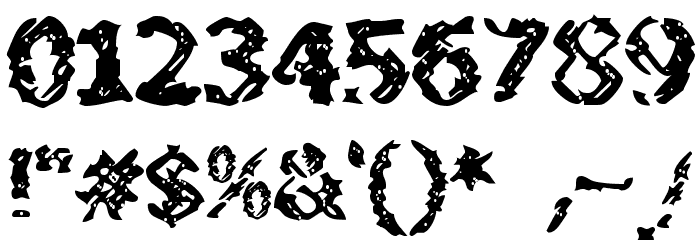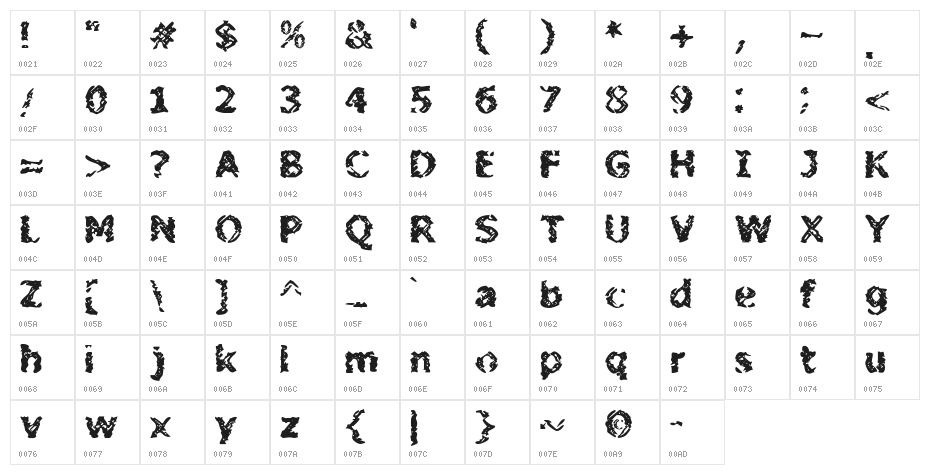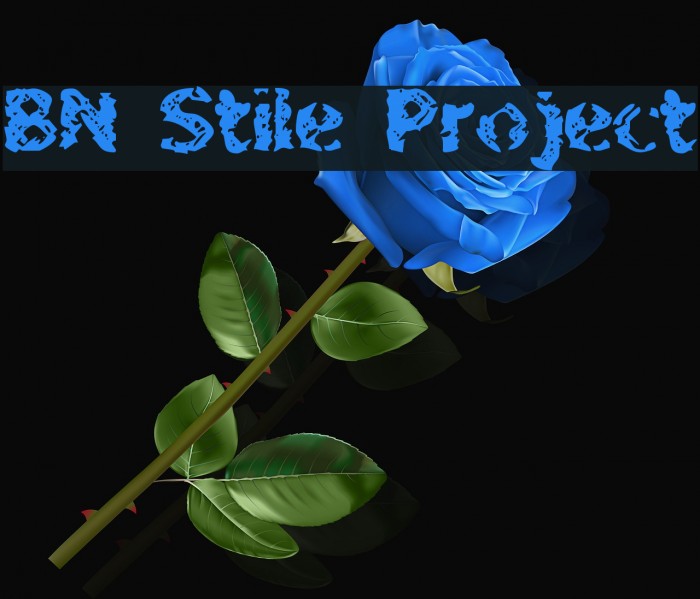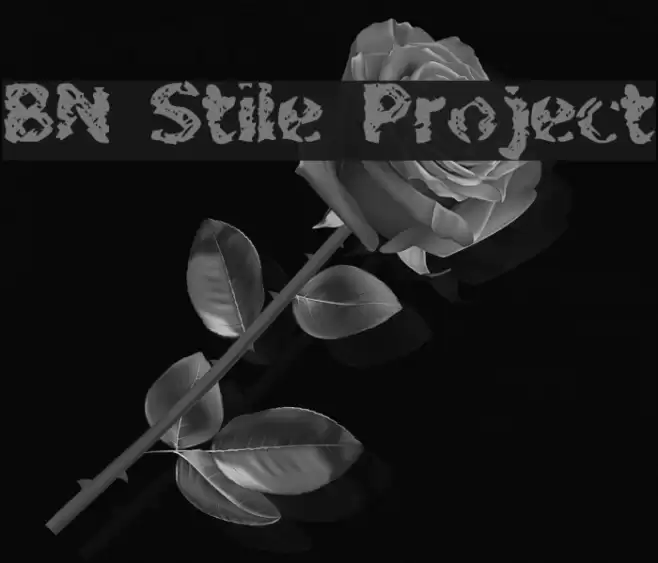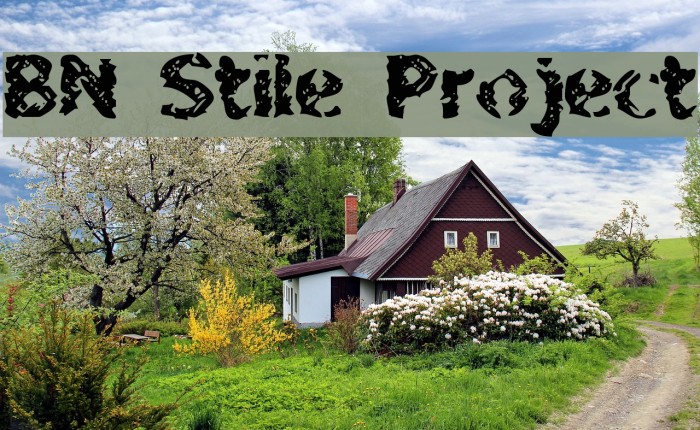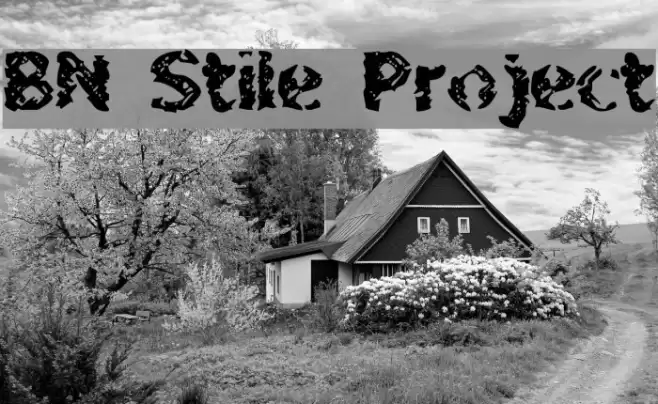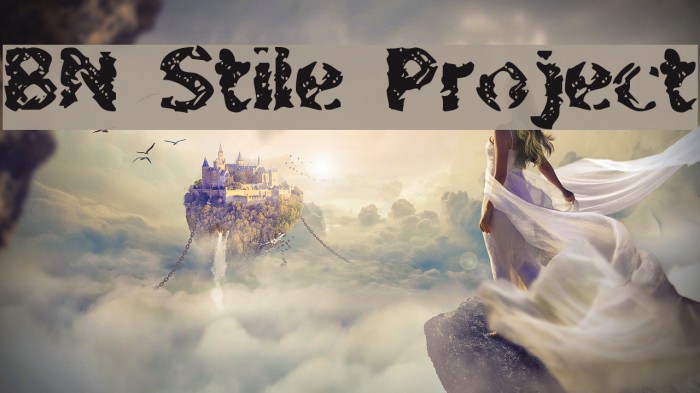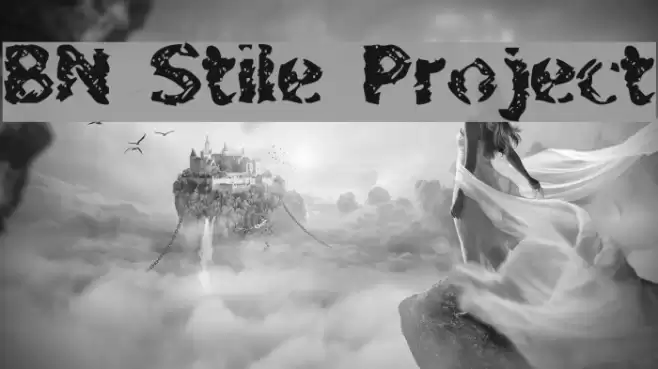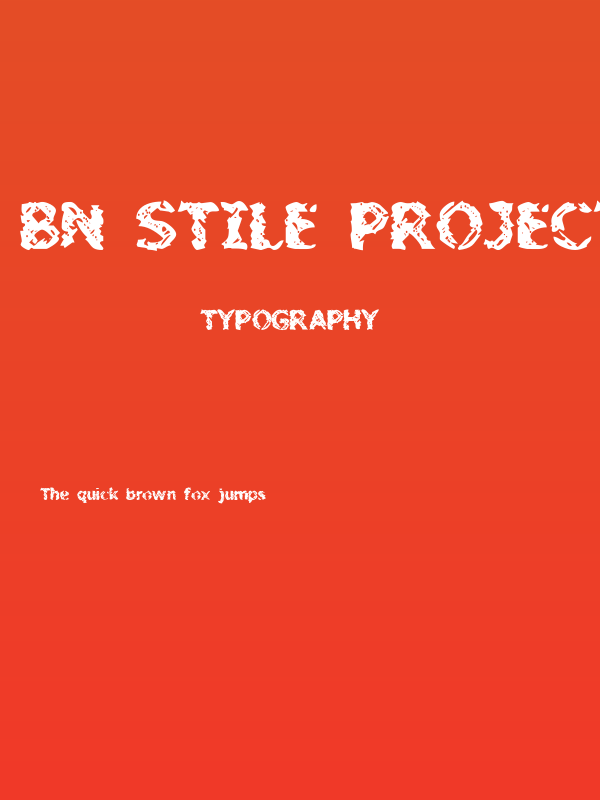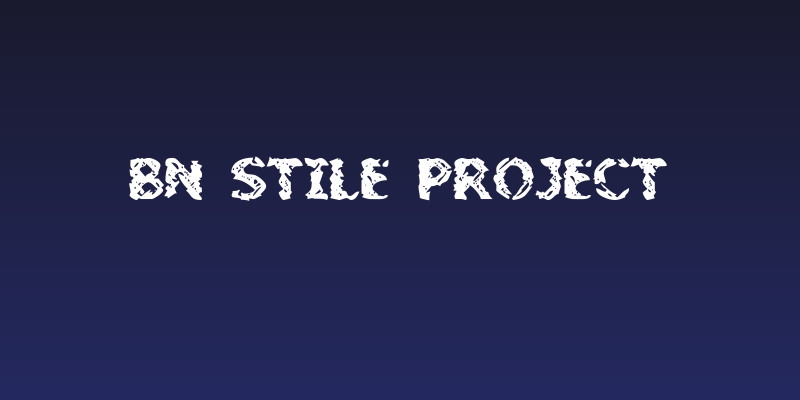
BN Stile Project Font
BN Stile Project Description
This font features a bold and distressed style, characterized by a rough, textured appearance that gives it a grungy and edgy feel. The letters are heavily stylized with irregular edges and a worn-out look, making it ideal for projects that require a raw and rugged aesthetic. The uppercase and lowercase letters maintain a consistent design, while the numbers and special characters follow the same distressed theme. This font is perfect for creating impactful designs that stand out with a unique and unconventional style.
| Overall Style | Grunge, Edgy, Urban |
| Proposed Projects | Ideal for album covers, posters, streetwear branding, and urban-themed designs. |